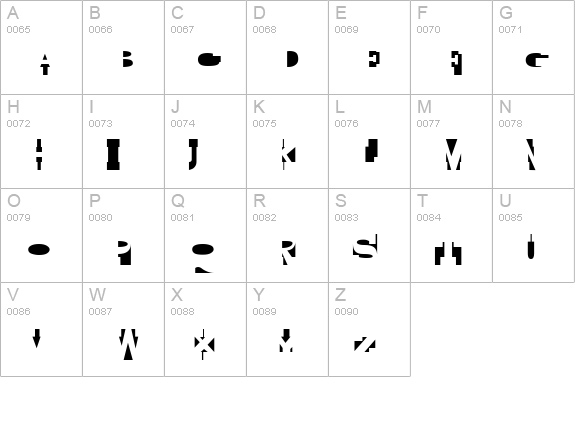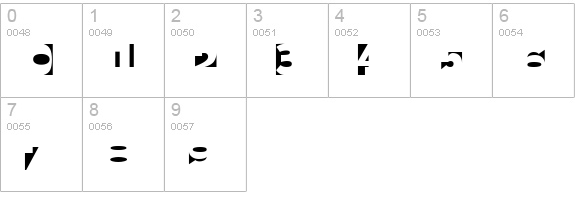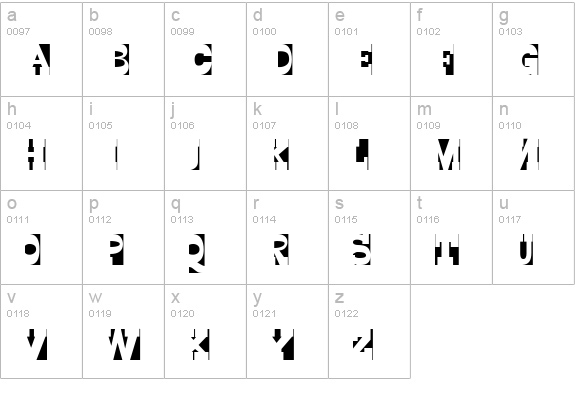
Yurnacular Font Details
Yurnacular font is a unique and stylish typeface that combines modern aesthetics with a touch of elegance. Its sleek lines and distinctive curves make it perfect for a wide range of design projects, from branding to editorial layouts. The versatility of Yurnacular font allows it to be used in both headlines and body text, ensuring a cohesive and polished look throughout your work. What sets Yurnacular font apart is not only its visual appeal, but also its accessibility. This font is freely available to download at FontsMarket.com, making it a valuable resource for designers and creatives looking to enhance their projects without breaking the bank. Whether you're working on a personal passion project or a professional assignment, Yurnacular font is sure to elevate your designs and leave a lasting impression on your audience.